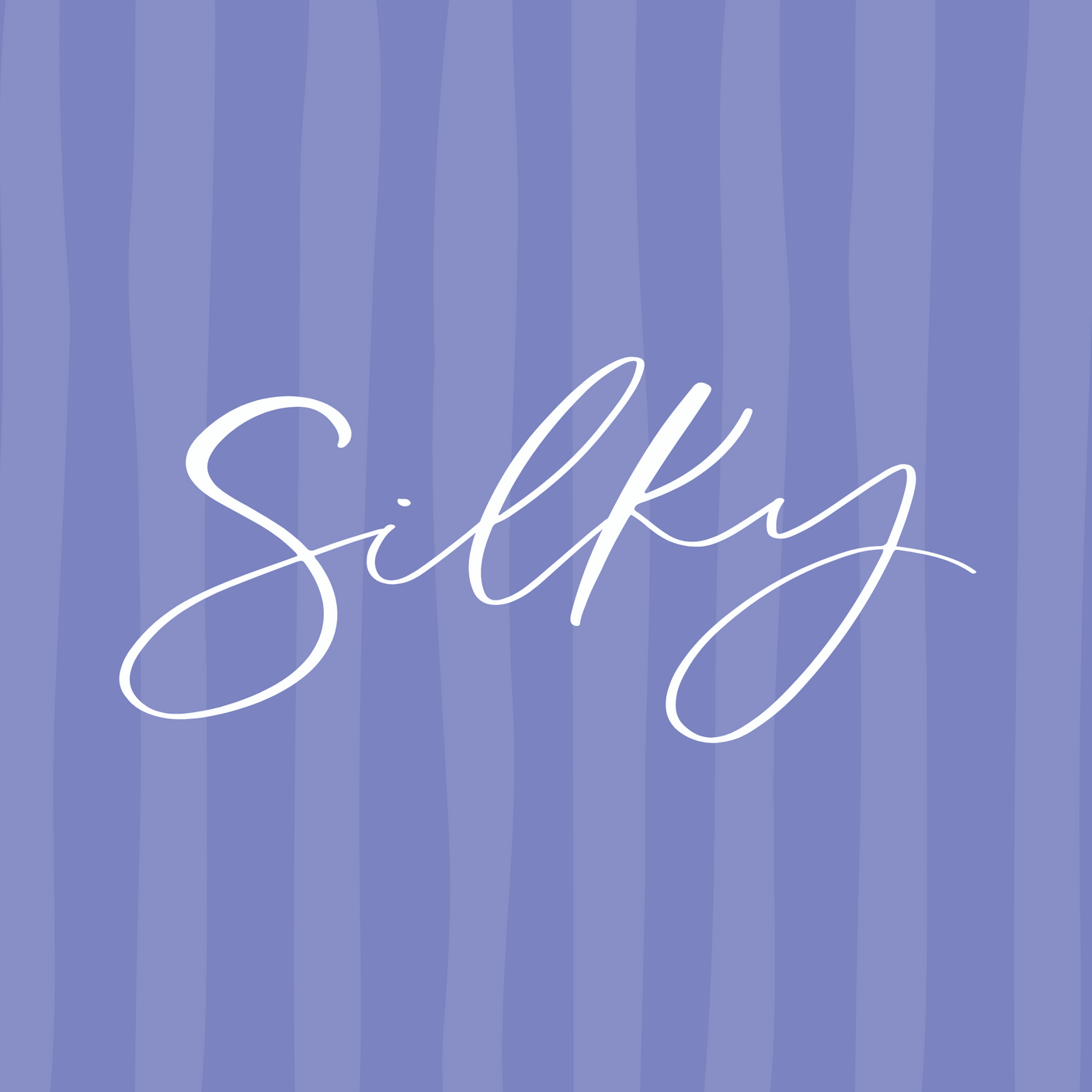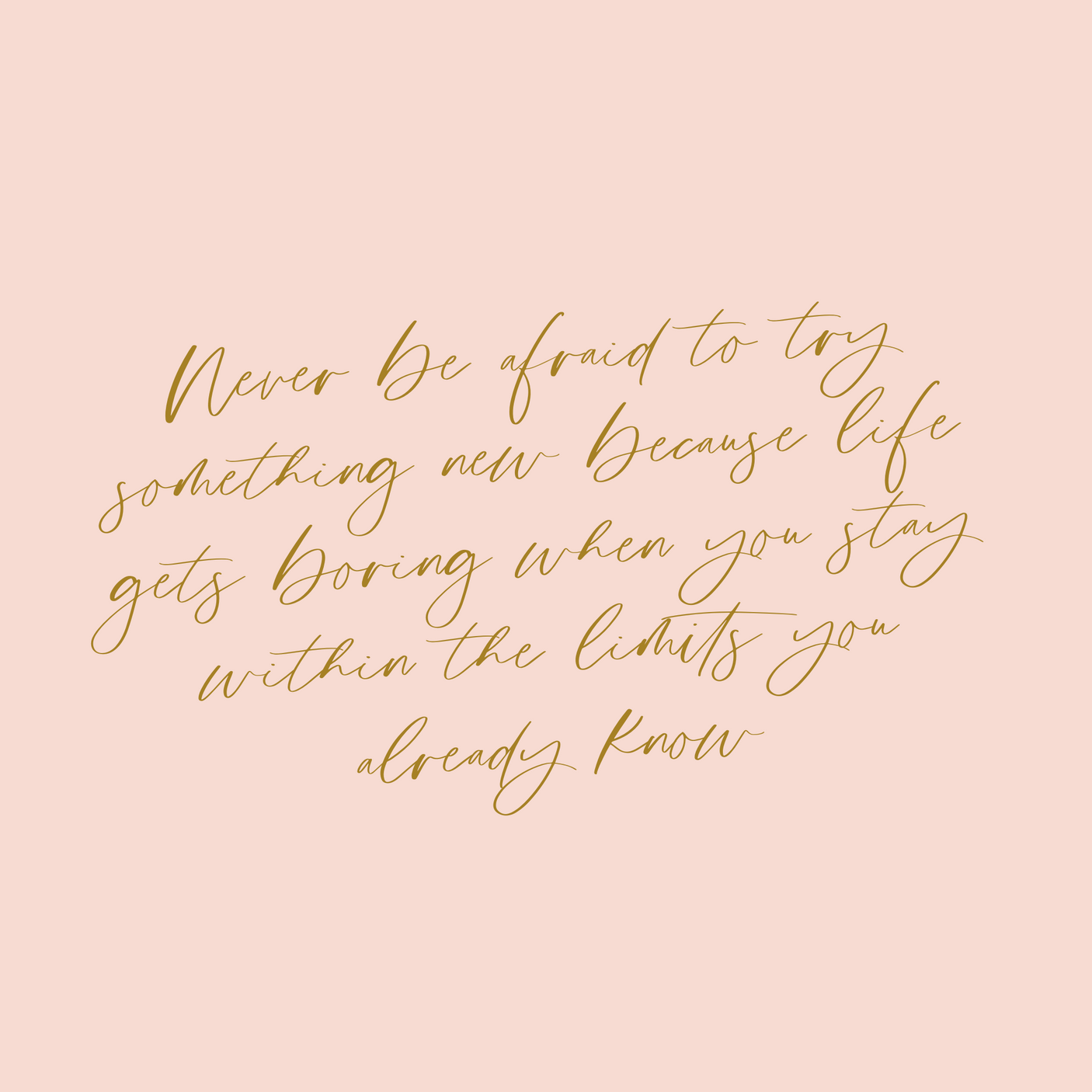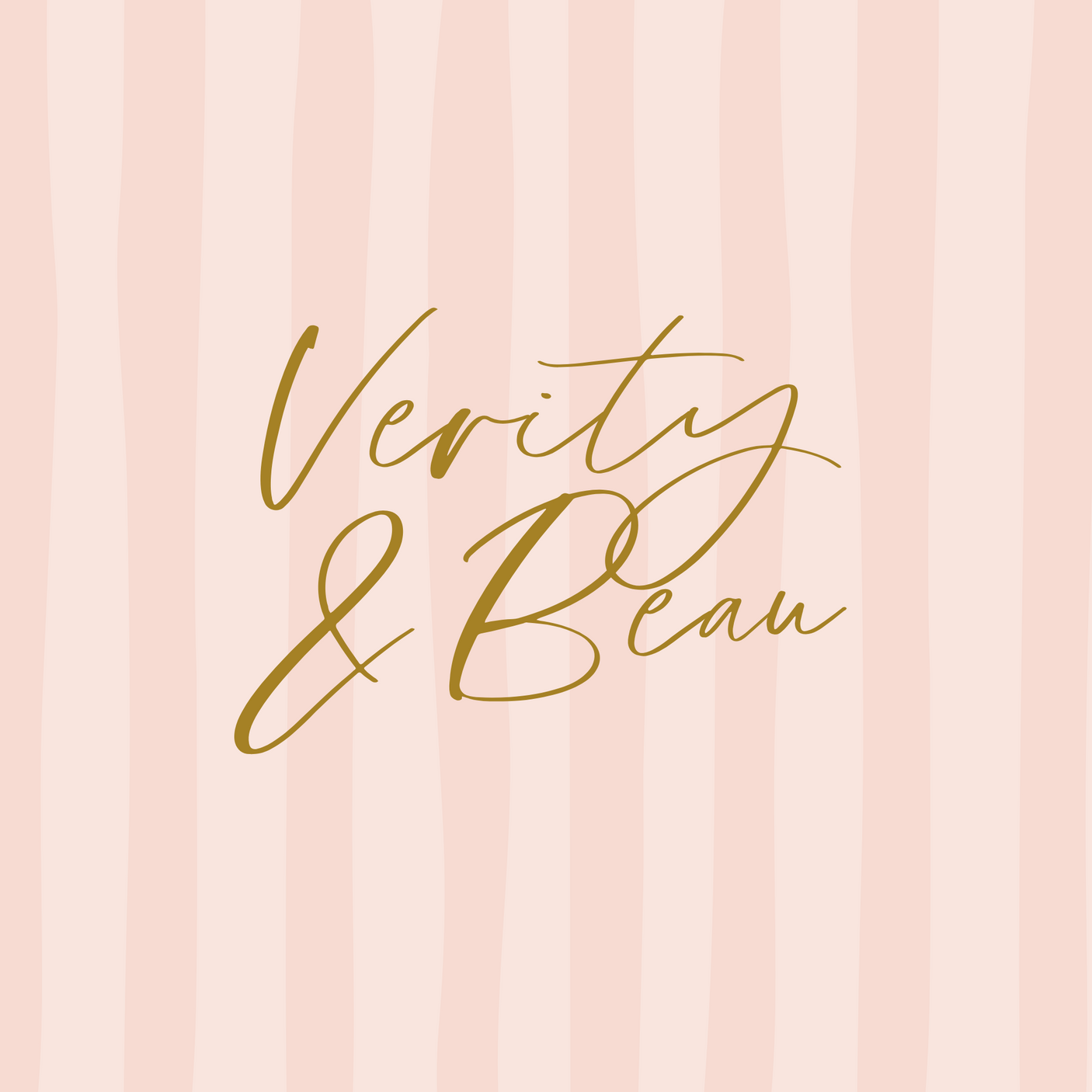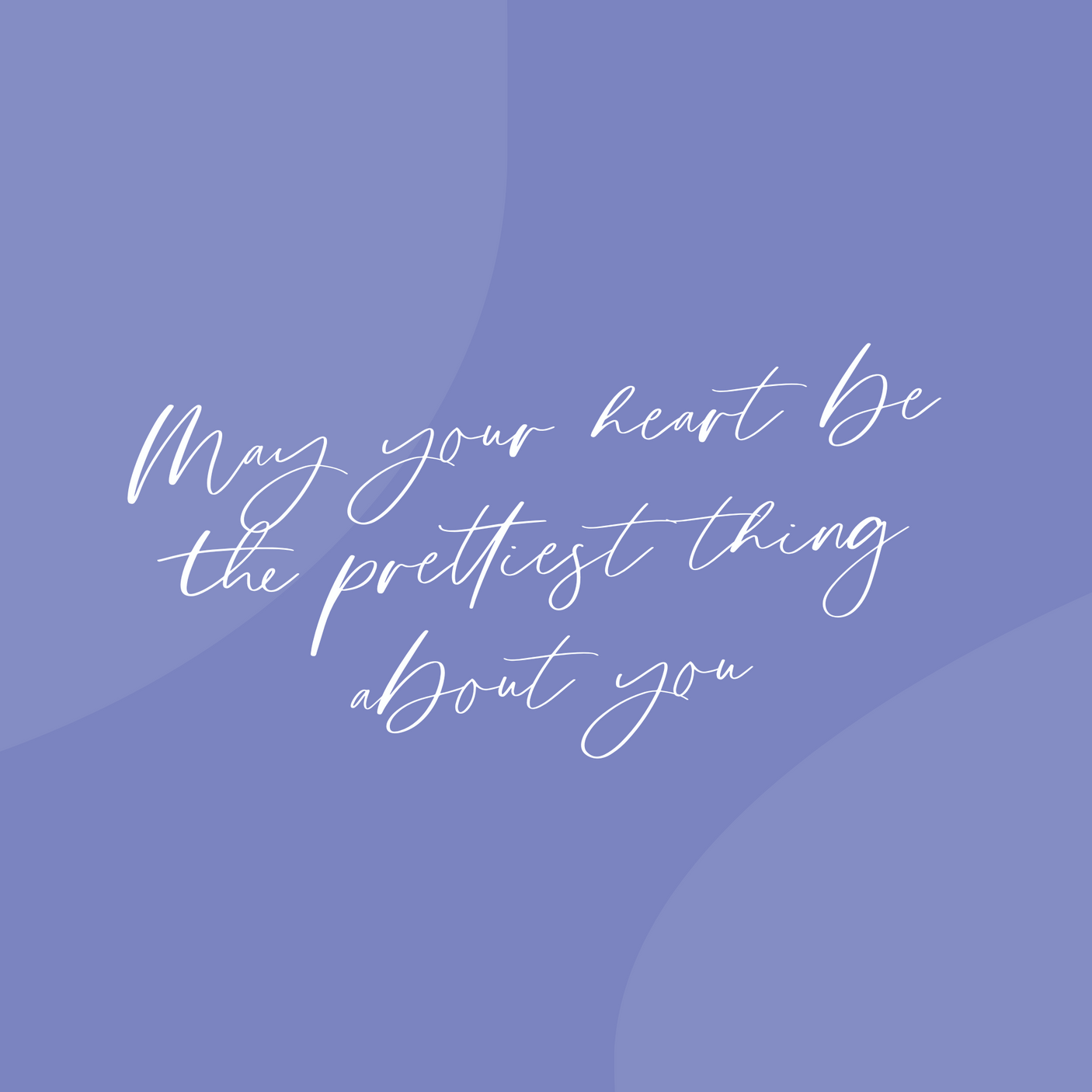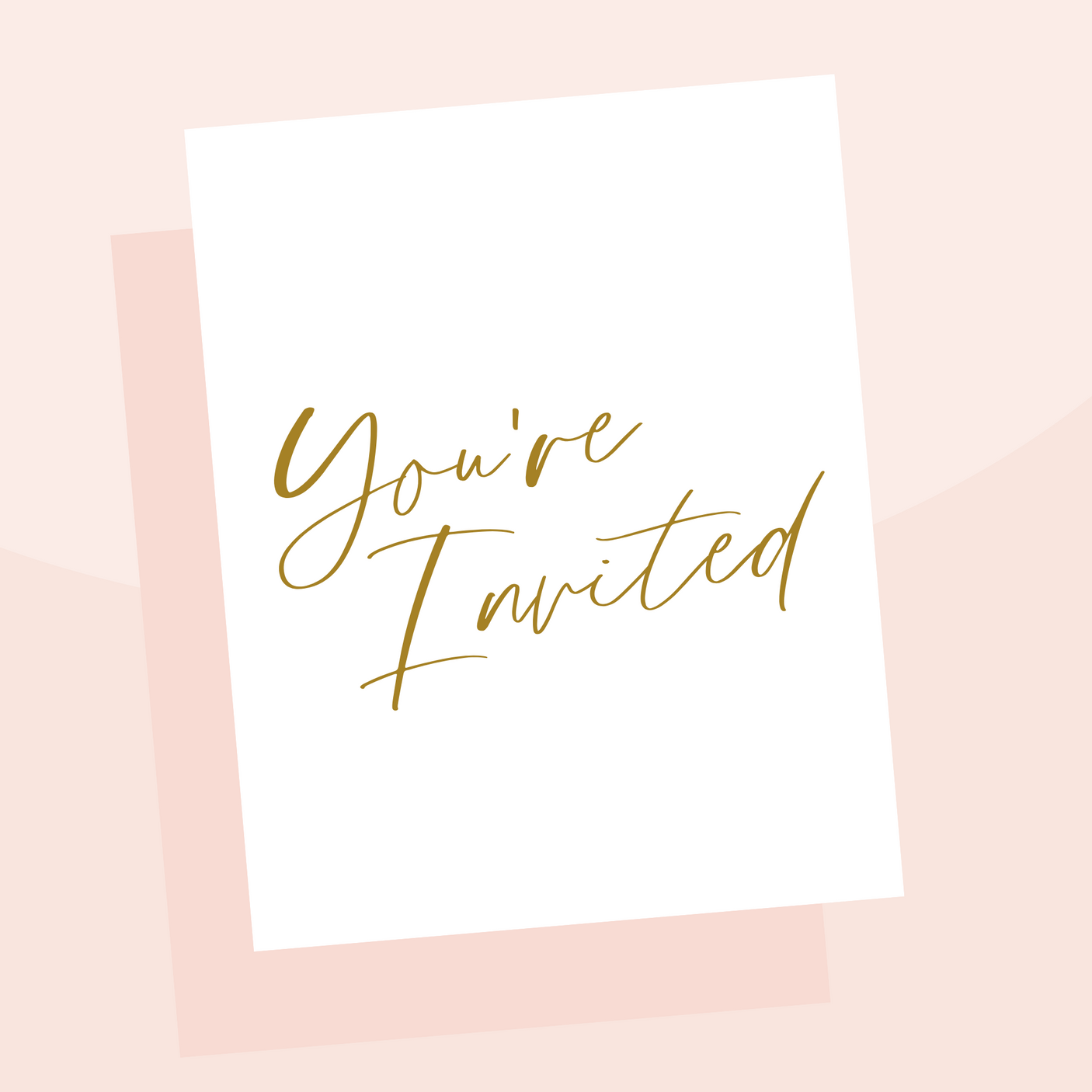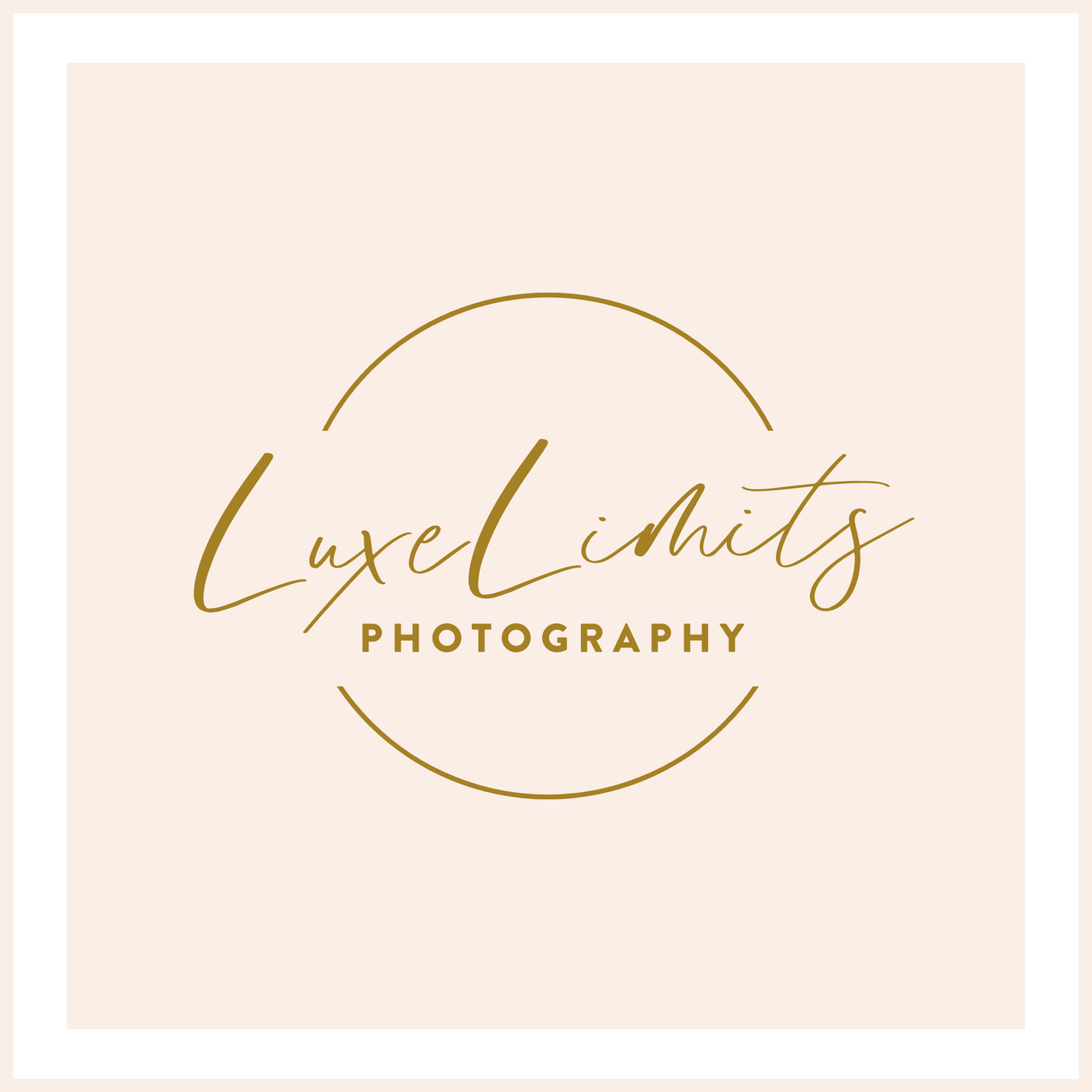
Silky Font
Meet Silky font, the epitome of modern elegance in a handwritten script font. With its flowing lines and stylish modern calligraphy style, Silky adds a touch of sophistication to any design. Perfectly crafted for creating beautiful quotes, elegant logos, wedding stationery, invitations, and more, this font is your go-to choice for timeless and refined designs.
Whether you’re crafting for a client or your own creative projects, Silky’s graceful curves and impeccable details ensure your designs stand out. Ideal for anyone who loves the beauty of handwritten script paired with a polished, modern aesthetic.